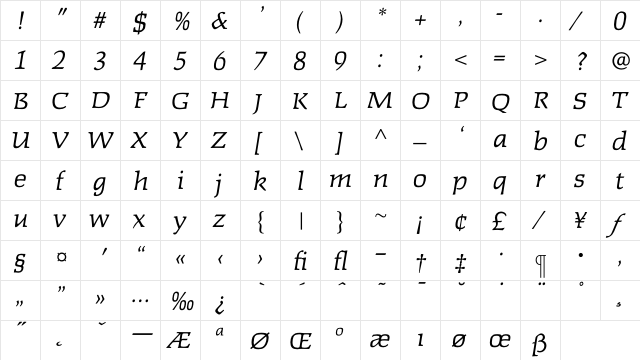
FaustLightItalic Regular
Design Context for FaustLightItalic Typeface
FaustLightItalic offers clean, dependable letterforms without strong stylistic allegiance, making it a practical choice for designers who need flexibility. The dynamic lean of this cut emphasises speed and emphasis in any layout. The delicate stroke weight brings airiness and refinement to layouts.
Pro Tip: Use FaustLightItalic for emphasis, pull quotes, and subheadings where its slanted energy can add rhythm to the layout.